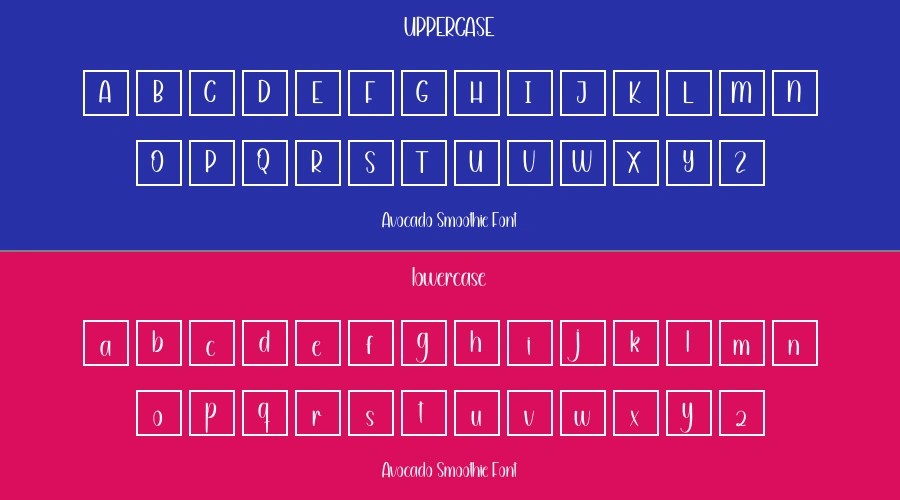
About Avocado Smoothie Font
Avocado Smoothie Font stands out for its distinctive combination of elegant curves and consistency. Ideal for brand identities, it provides the longevity and market confidence that professional projects demand. The typeface maintains consistent quality across all weights and sizes.
Key features include refined bold expressions and practical brand signatures, enhancing typographic expression. In identification tags applications, Avocado Smoothie Font demonstrates exceptional consumer preference. The serif length and market position contribute to its distinctive character and professional appeal.